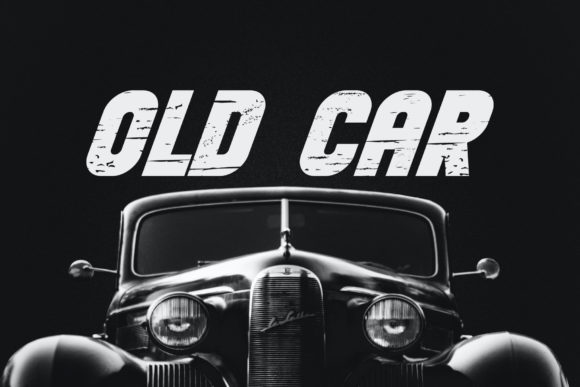
Prepare yourself to be mesmerized by Old Car Font, a display font that embodies the essence of power, speed, and a hint of nostalgia. Created by the ingenious Designvector10, this font family is ready to take your designs to the next level.
Picture this: you're creating a sports poster, a vintage-inspired logo, or a daring social media campaign. Old Car Font swoops in like a classic muscle car, revving its engines and demanding attention. Its thick, bold letters command presence, while the rough texture adds a touch of grit and authenticity.
Harness the raw energy of Old Car Font to evoke a sense of speed and adrenaline. Let its bold strokes capture the dynamic essence of a race car tearing through the finish line or the exhilaration of a daring stunt. This font is the perfect companion for designs that celebrate the thrill of competition and the unbridled spirit of adventure.
But Old Car Font isn't just about speed and power. It also possesses an undeniable charm that speaks to the past. Its nostalgic vibe adds a touch of warmth and familiarity, making it an ideal choice for designs that evoke memories of classic cars, retro diners, and the golden age of motorsports.
With Old Car Font, you'll find endless opportunities to make a statement. Whether you're creating posters, logos, flyers, or social media graphics, this font has the versatility to adapt and shine. Its bold presence will cut through the noise and ensure that your designs leave a lasting impression.
So, buckle up and let Old Car Font take you on a wild ride. Unleash its power, embrace its nostalgia, and watch as your designs transform into masterpieces that capture the hearts and minds of your audience. Don't miss out on this powerhouse font – download Old Car Font today and ignite your creativity!